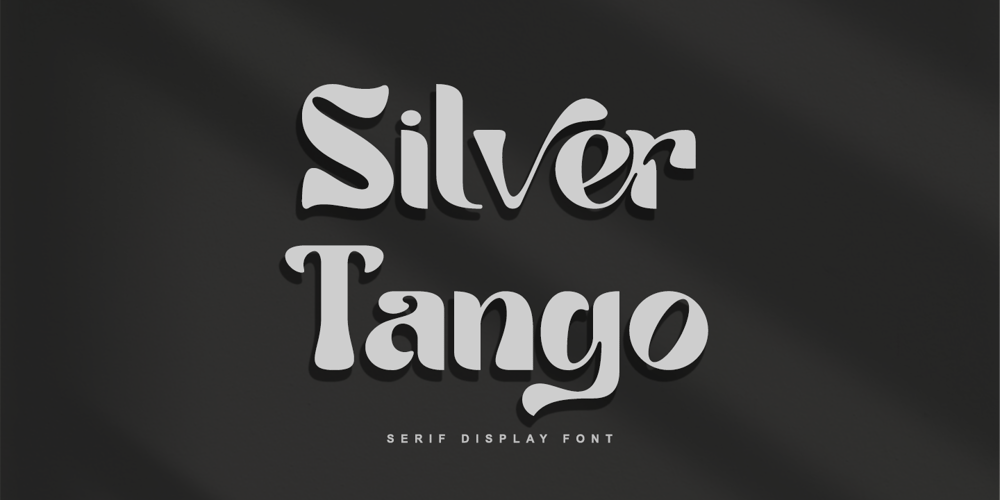
Tango Silver Font Family was designed by Thomas Aradea and published by Letterara. Tango Silver contains 2 styles and family package options. Tango Silver is a Bold serif font family with a unique style. It has a modern and strong look. this font is suitable for many projects, for modern or even retro vintage design, branding, crafting, sticker, sublimation, wedding invitation, advertising, vintage mood boards, logotype, packaging, titles, editorial design, and many more. This font is PUA encoded, which means you can easily access all of the glyphs and swashes!